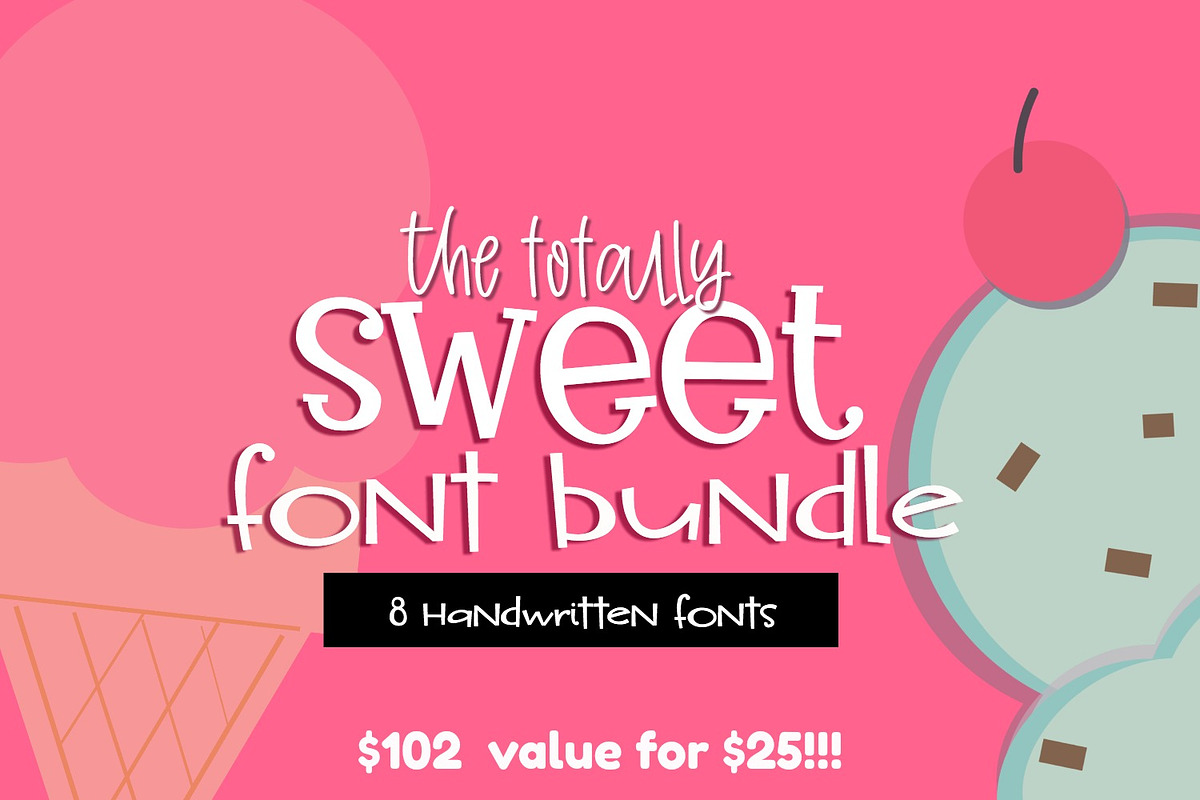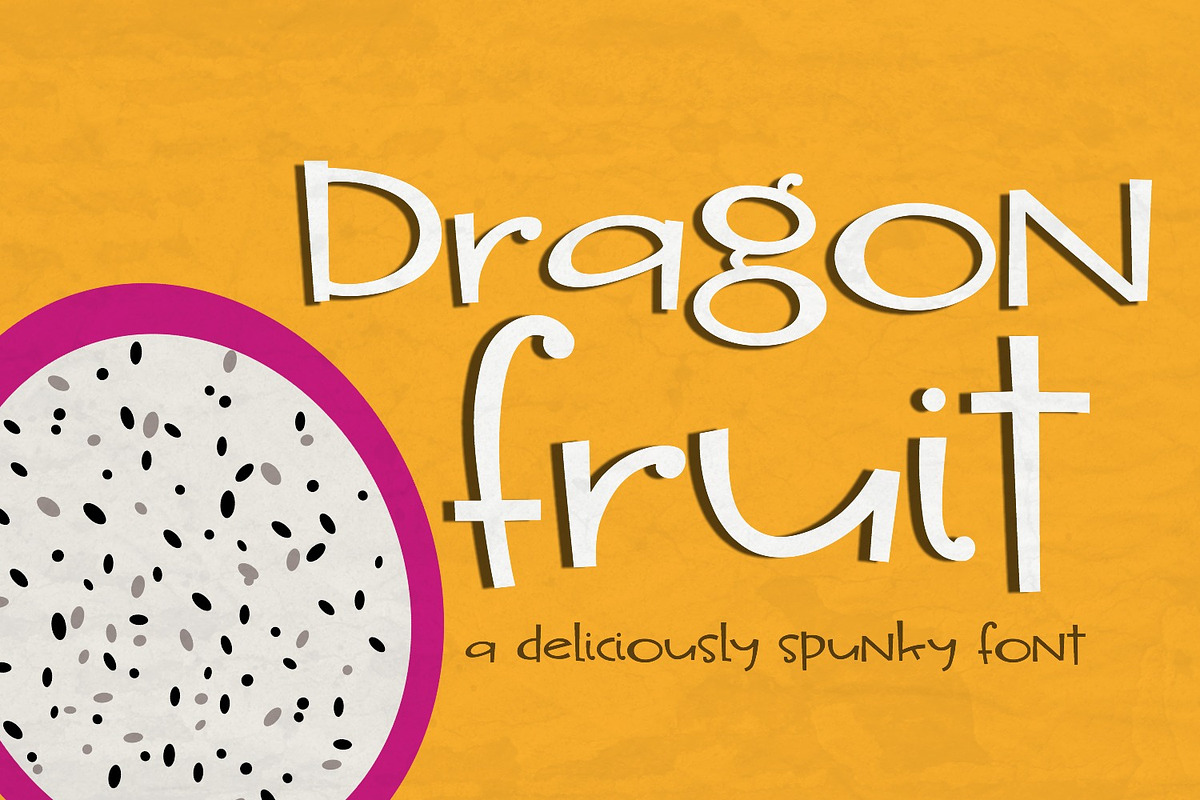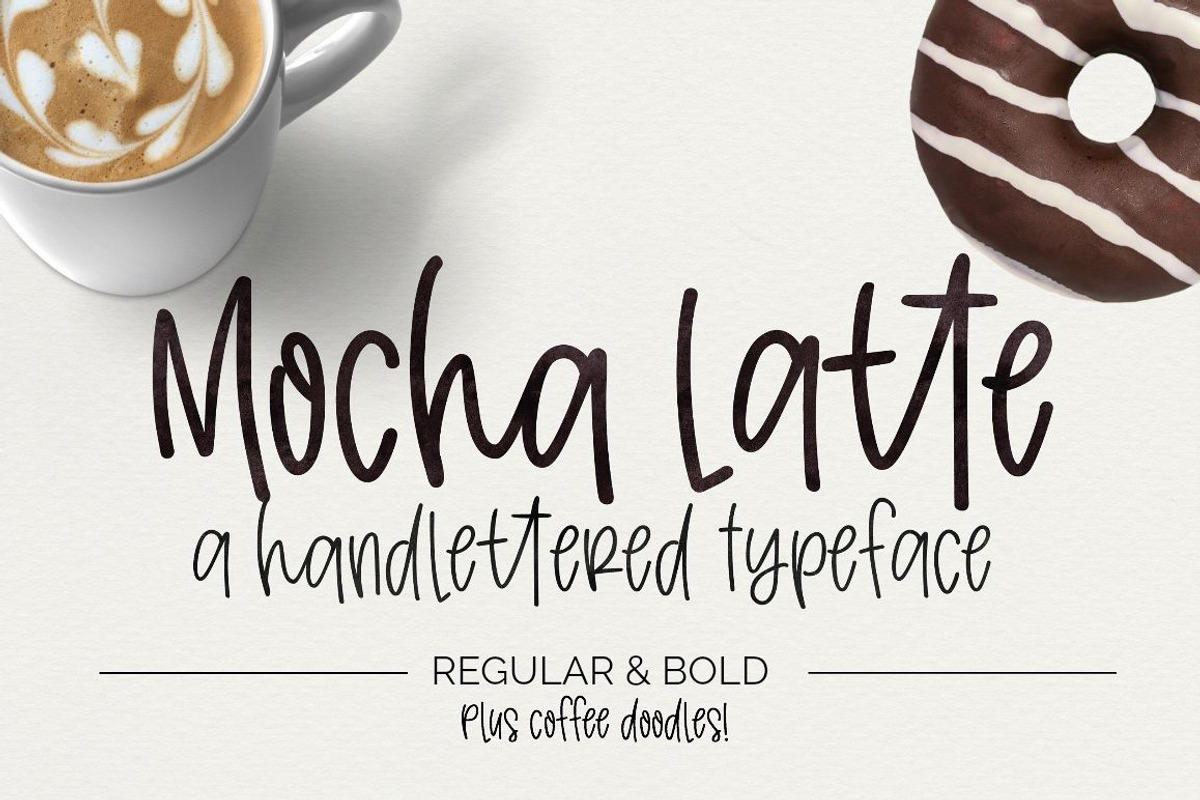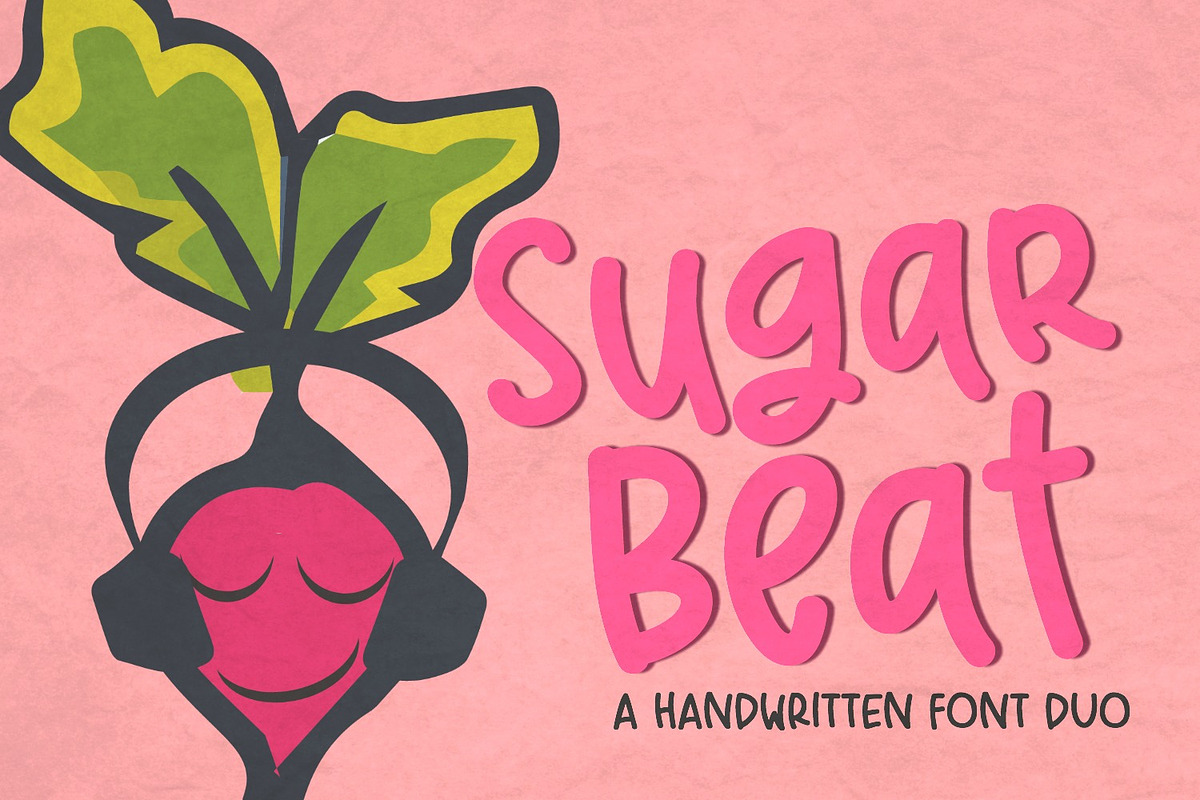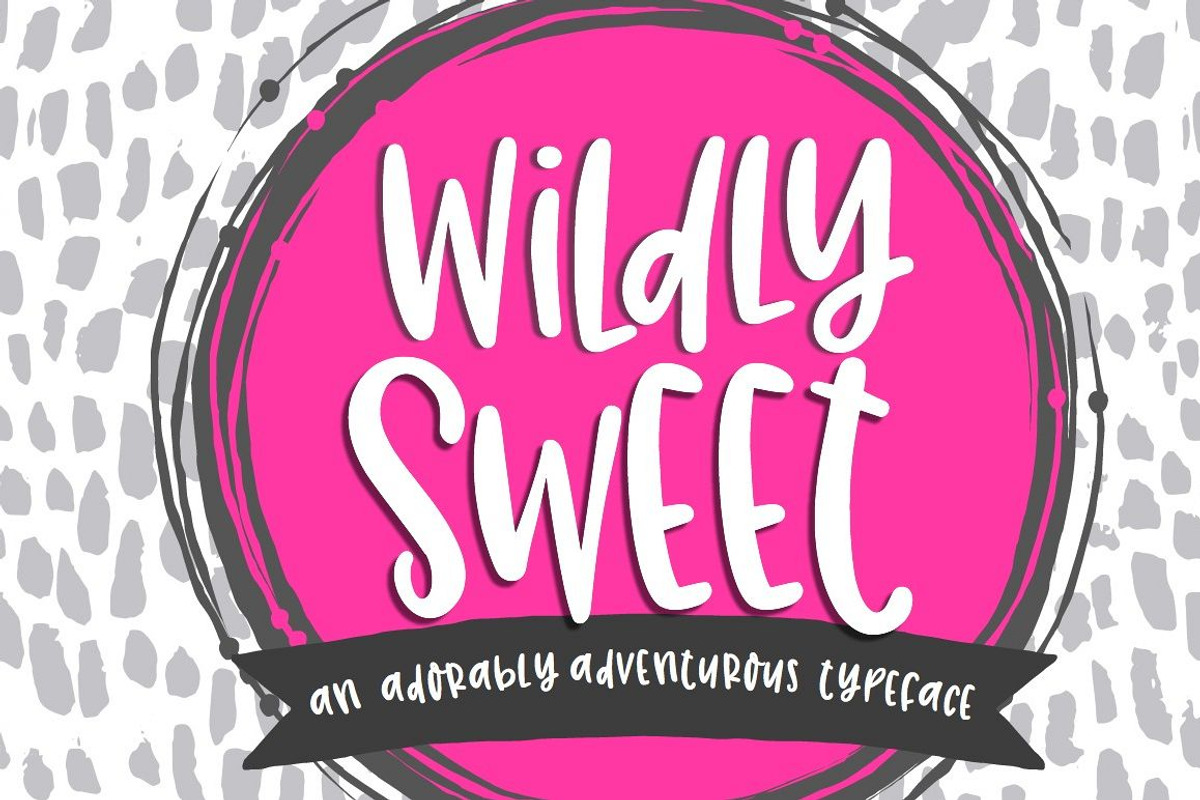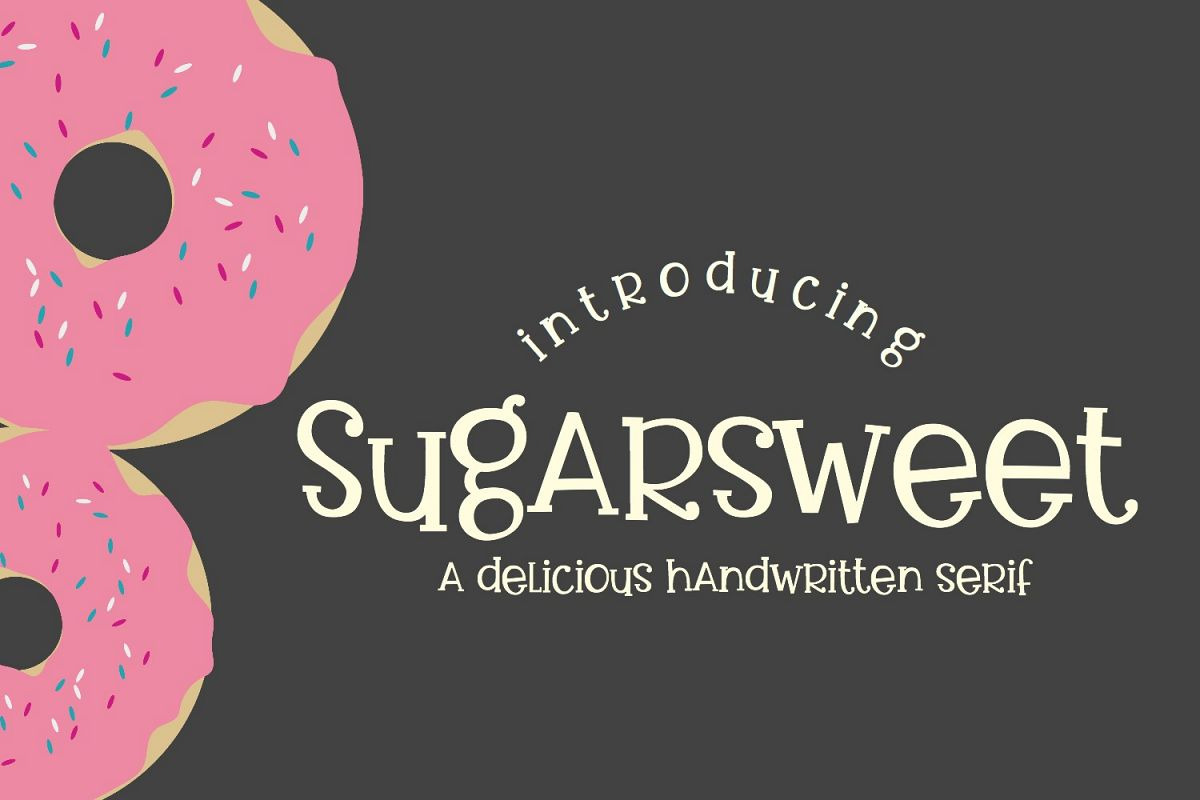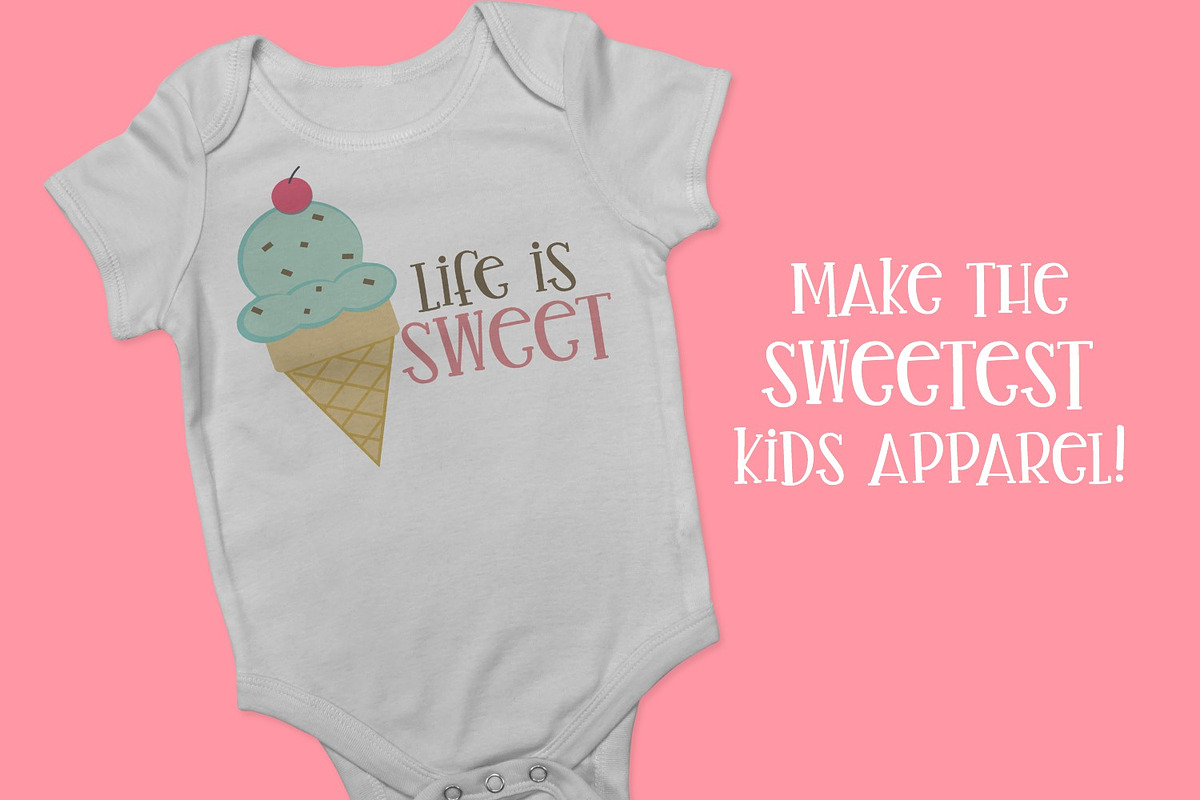
Totally Sweet Font Bundle
This Totally Sweet Font Bundle includes 8 handwritten fonts that are perfect for your sweetest, youthfully feminine designs! I've taken the time with each of these fonts to make sure they are as smooth as possible for optimal cutting machine performance, making these fonts a must-have for Cricut and Silhouette crafters!
- This Totally Sweet Font Bundle includes 8 handwritten fonts that are perfect for your sweetest, youthfully feminine designs!